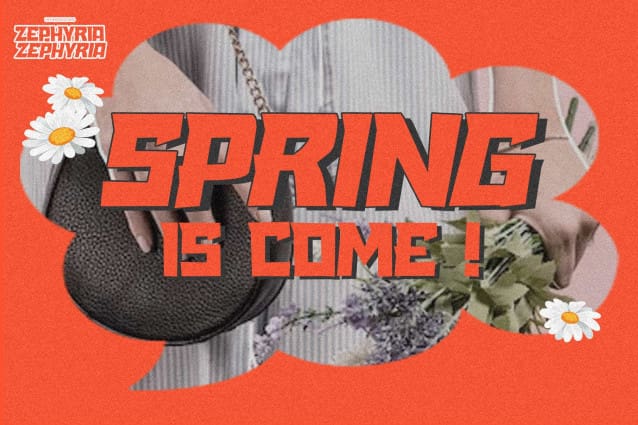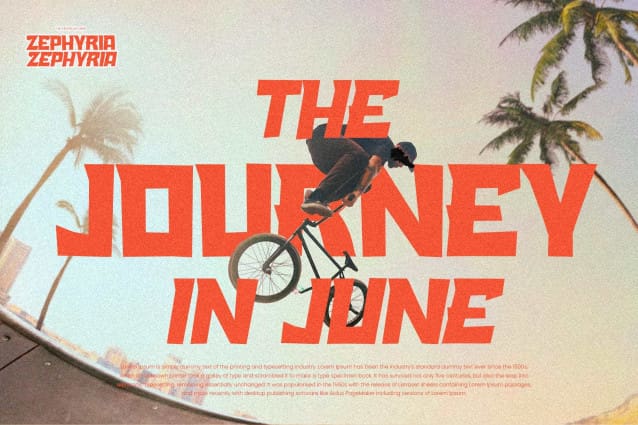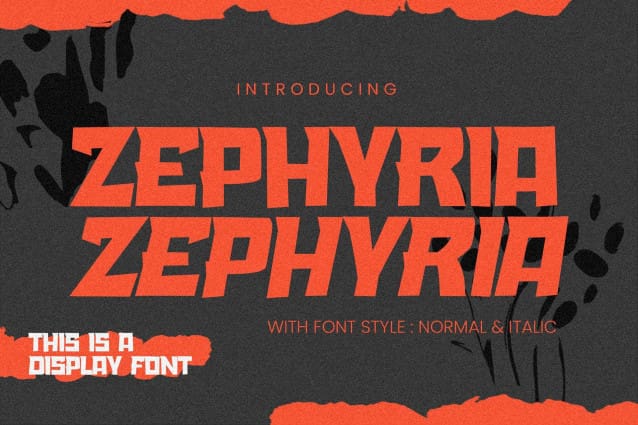
Zephyria Font
Zephyria Font – This is a Display Font. are bold, eye-catching typefaces crafted to make a strong visual impact in large sizes. This font is perfect for making a strong statement in your designs.